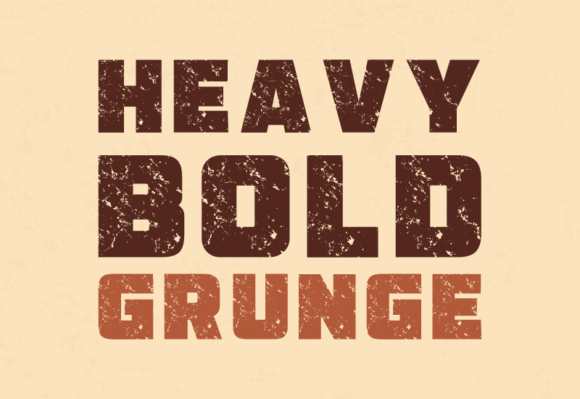
Unleash the Power of Heavy Bold Grunge Font: Elevate Your Visual Storytelling
In the world of typography, few fonts have made a statement as bold as Heavy Bold Grunge. This sans-serif typeface has taken the design world by storm with its unparalleled grit and audacious charm. More than just a font, Heavy Bold Grunge is a statement piece that can elevate your visual storytelling to new heights. In this article, we’ll explore the unique features of Heavy Bold Grunge and how it can be used to create unforgettable designs.
Key Features of Heavy Bold Grunge
- Innovative and Rebellious Design: Heavy Bold Grunge is designed to stand out from the crowd. Its innovative and rebellious design makes it perfect for projects that require a bold statement.
- Rustic, Distressed Finish: Each stroke of this audacious typeface is designed with a rustic, distressed finish that embodies daring and individuality.
- Strong, Courageous Boldness: Heavy Bold Grunge boasts strong, courageous boldness that is sure to grab attention.
- Unmistakable Uniqueness: This font is truly one-of-a-kind, making it perfect for projects that require a unique touch.
Perfect for Groundbreaking Projects
Heavy Bold Grunge is more than just a font – it’s a statement piece that can elevate your designs to new heights. Here are some use cases where Heavy Bold Grunge can make a significant impact:
- Print Media: Whether you’re designing a bold poster, a striking magazine cover, or a compelling book title, Heavy Bold Grunge is the perfect choice.
- Music Graphics: If you’re a music enthusiast or a graphic designer working with musicians, Heavy Bold Grunge can help you create rebellious and eye-catching graphics.
- Fashion Labels: For fashion designers and brands looking to make a statement, Heavy Bold Grunge can help define your brand identity with its bold and daring design.
Tips for Using Heavy Bold Grunge
While Heavy Bold Grunge is an incredibly versatile font, here are some design tips to keep in mind:
- Use it Sparingly: Due to its bold nature, it’s best to use Heavy Bold Grunge sparingly to avoid overwhelming your design.
- Pair it with Simpler Fonts: Pair Heavy Bold Grunge with simpler fonts to create a striking contrast and add visual interest to your design.
- Experiment with Colors: Heavy Bold Grunge looks great in bold colors, so don’t be afraid to experiment and find the perfect color scheme for your design.
The Benefits of Using Heavy Bold Grunge
So, why choose Heavy Bold Grunge for your design projects? Here are some benefits of using this audacious font:
- Unforgettable Impact: Heavy Bold Grunge is sure to leave a lasting impression on your audience.
- Increased Visibility: With its bold and daring design, Heavy Bold Grunge can help increase visibility for your brand or project.
- Unique Brand Identity: Heavy Bold Grunge can help you create a unique brand identity that sets you apart from the competition.
In conclusion, Heavy Bold Grunge is more than just a font – it’s a statement piece that can elevate your visual storytelling to new heights. With its innovative and rebellious design, rustic distressed finish, and strong, courageous boldness, Heavy Bold Grunge is perfect for groundbreaking projects that require a bold statement. By following the design tips outlined above and leveraging the benefits of using Heavy Bold Grunge, you can create unforgettable designs that speak volumes.